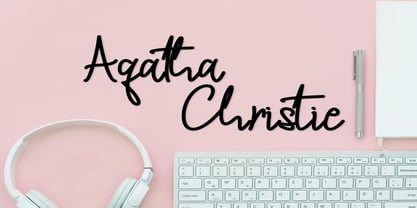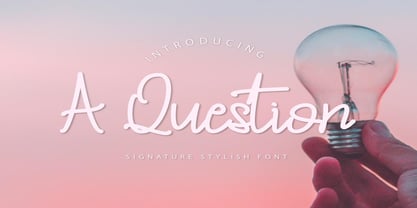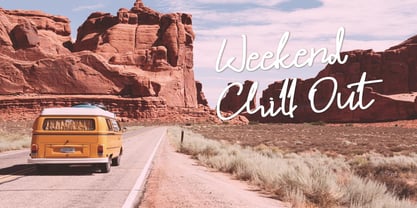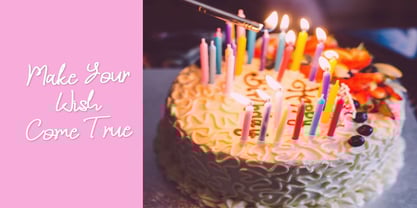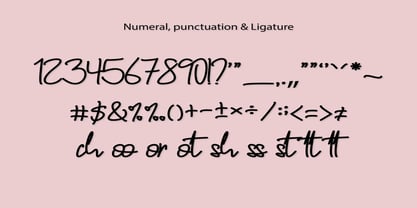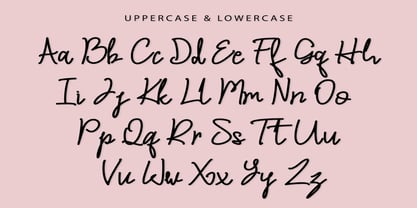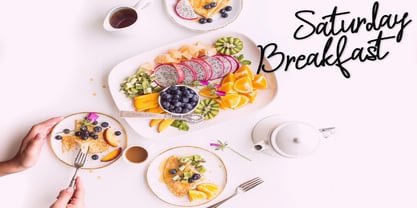
A Question
by Mifiq
The A Question Font Family was designed by Taufiq Wijaya and published by Mifiq. A Question contains 1 styles. More about this family
A Question is a stylish and expressive handwritten script font designed to bring elegance and personality into any project. With its smooth natural flow and carefully balanced letterforms, A Question captures the essence of modern calligraphy—perfect for branding, editorial design, packaging, and digital content.
This font includes a full set of uppercase and lowercase letters, numerals, punctuation, and a wide range of ligatures, ensuring professional-quality results in every use. Whether you're crafting a logo, designing a social media post, or developing lifestyle branding, A Question delivers charm, clarity, and a handcrafted feel that stands out effortlessly.
Elevate your typography with a font that asks more than just style—it makes a statement.